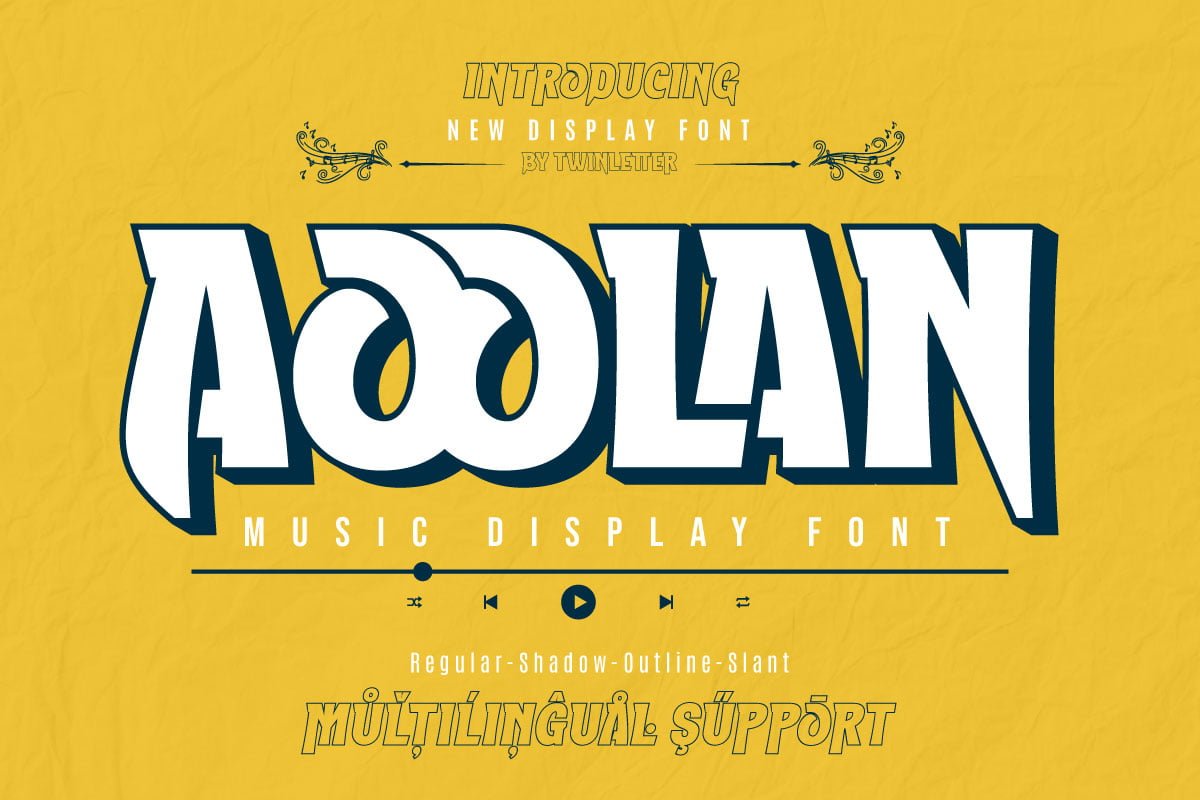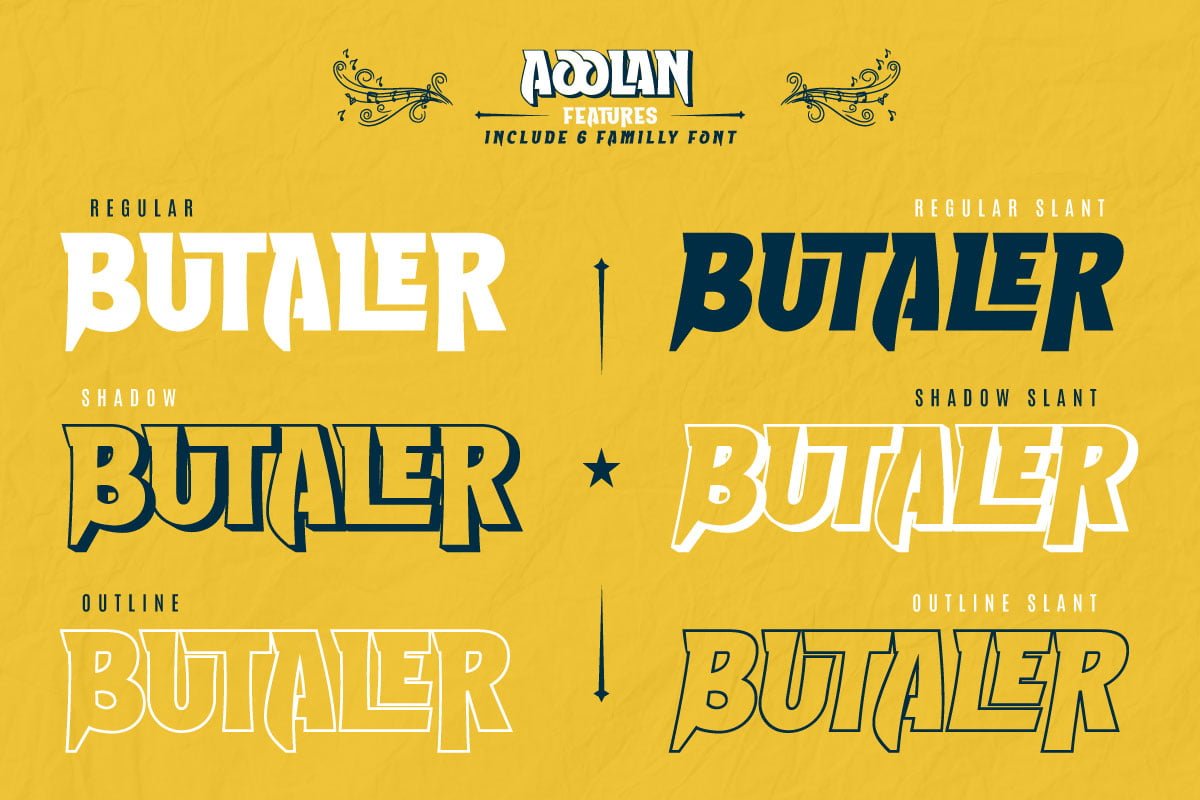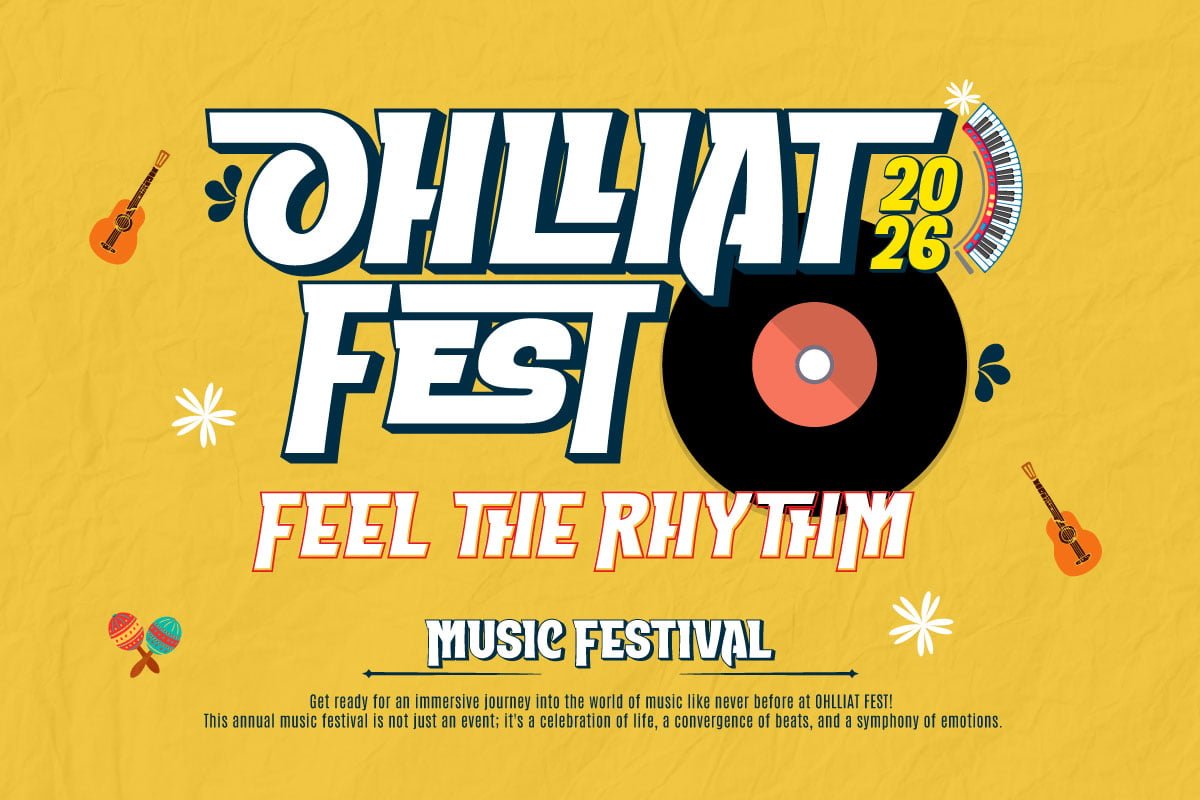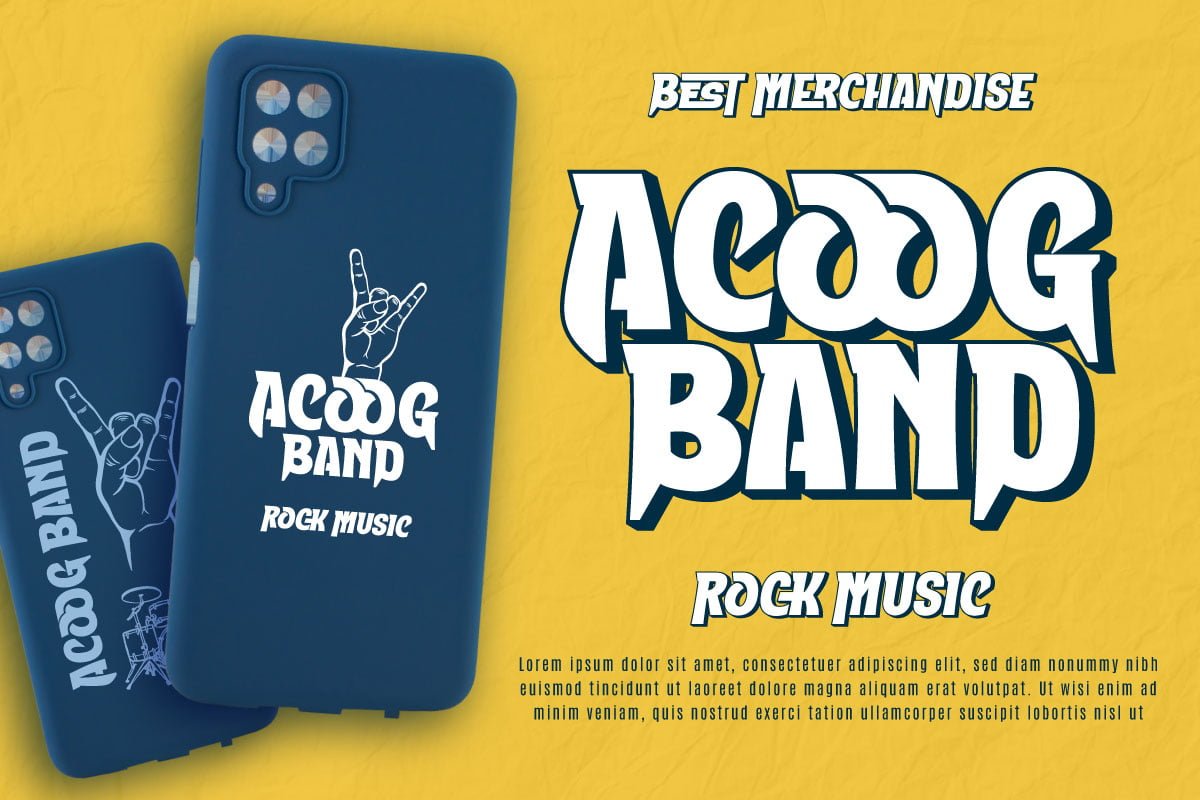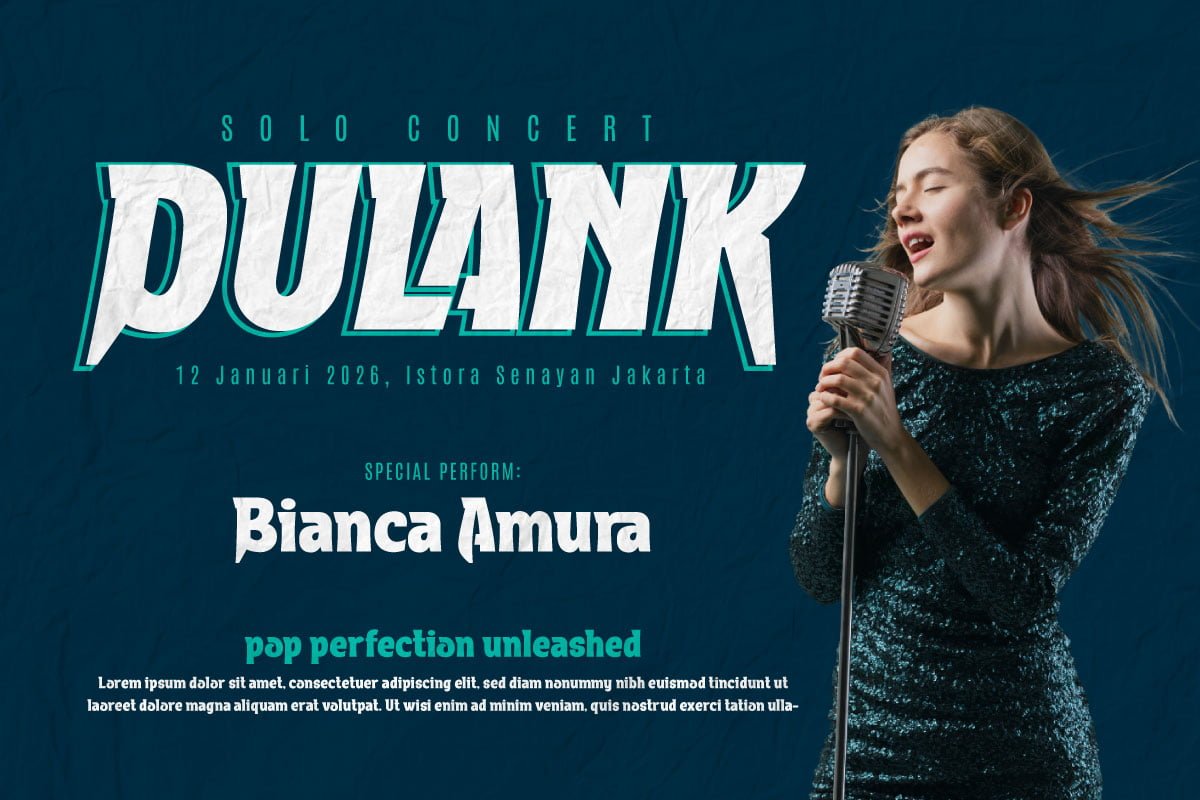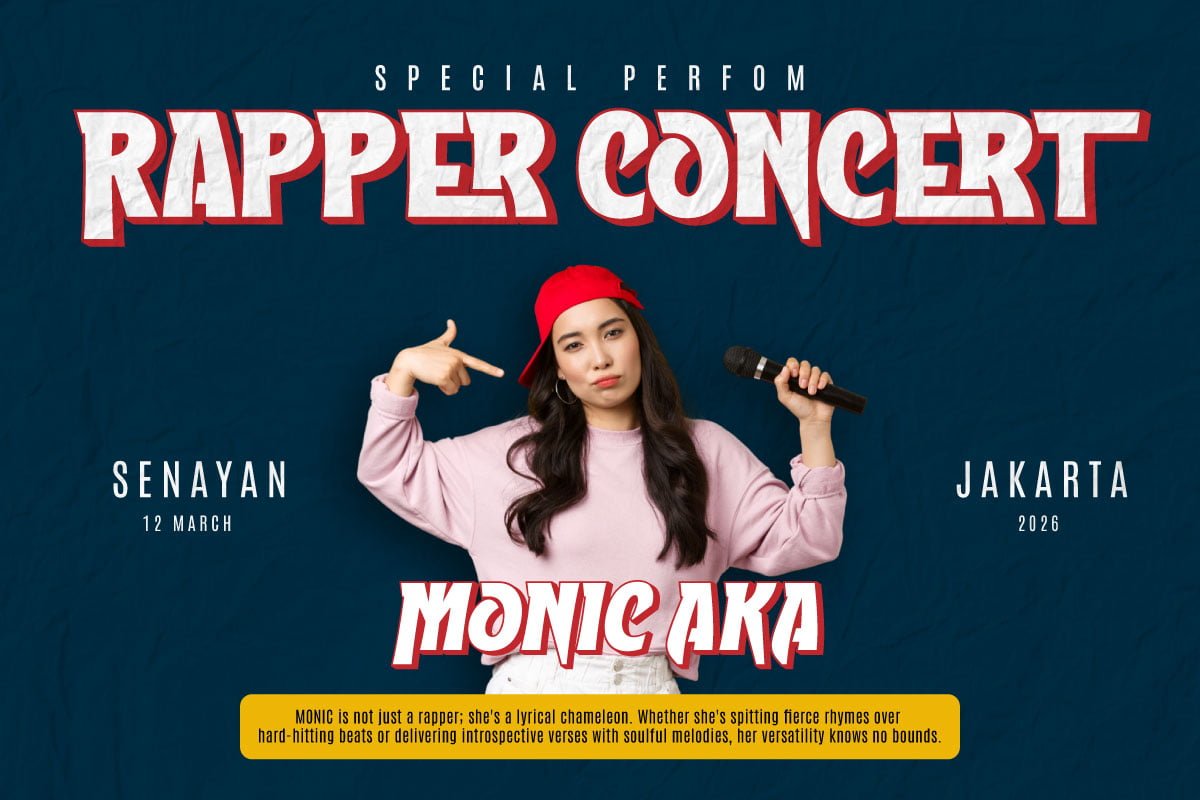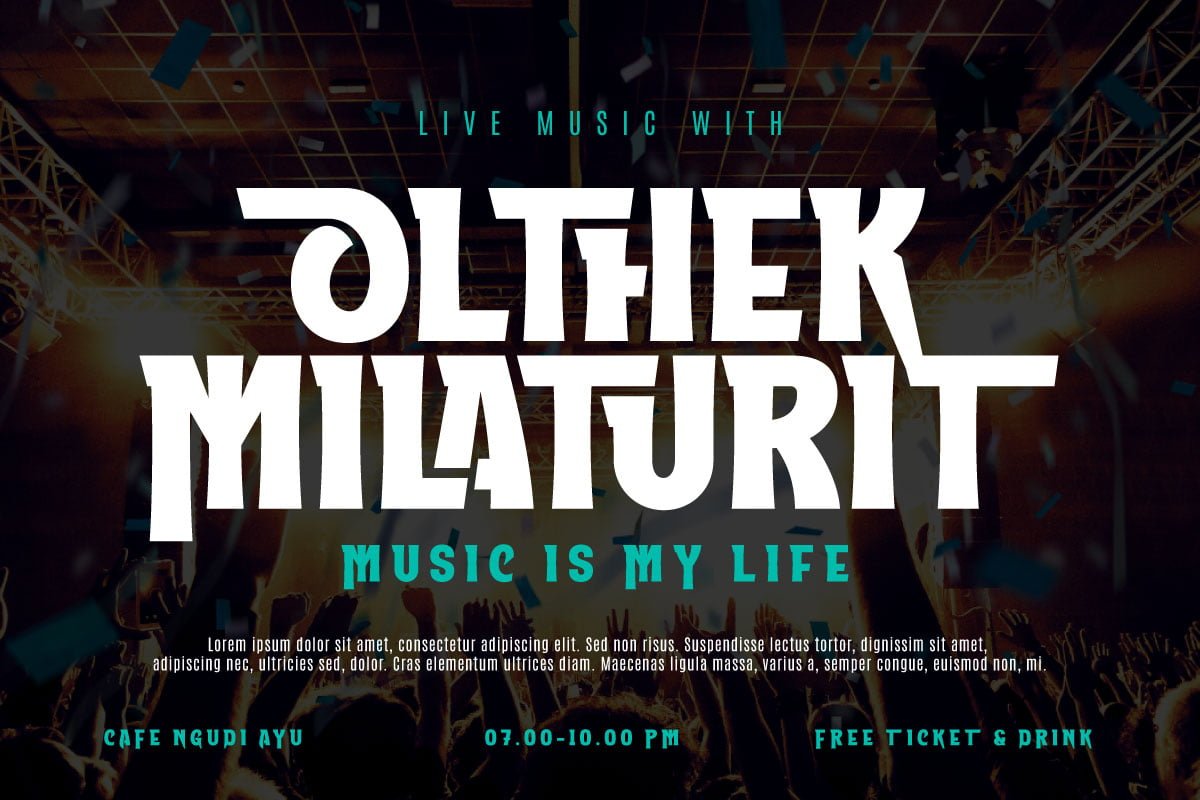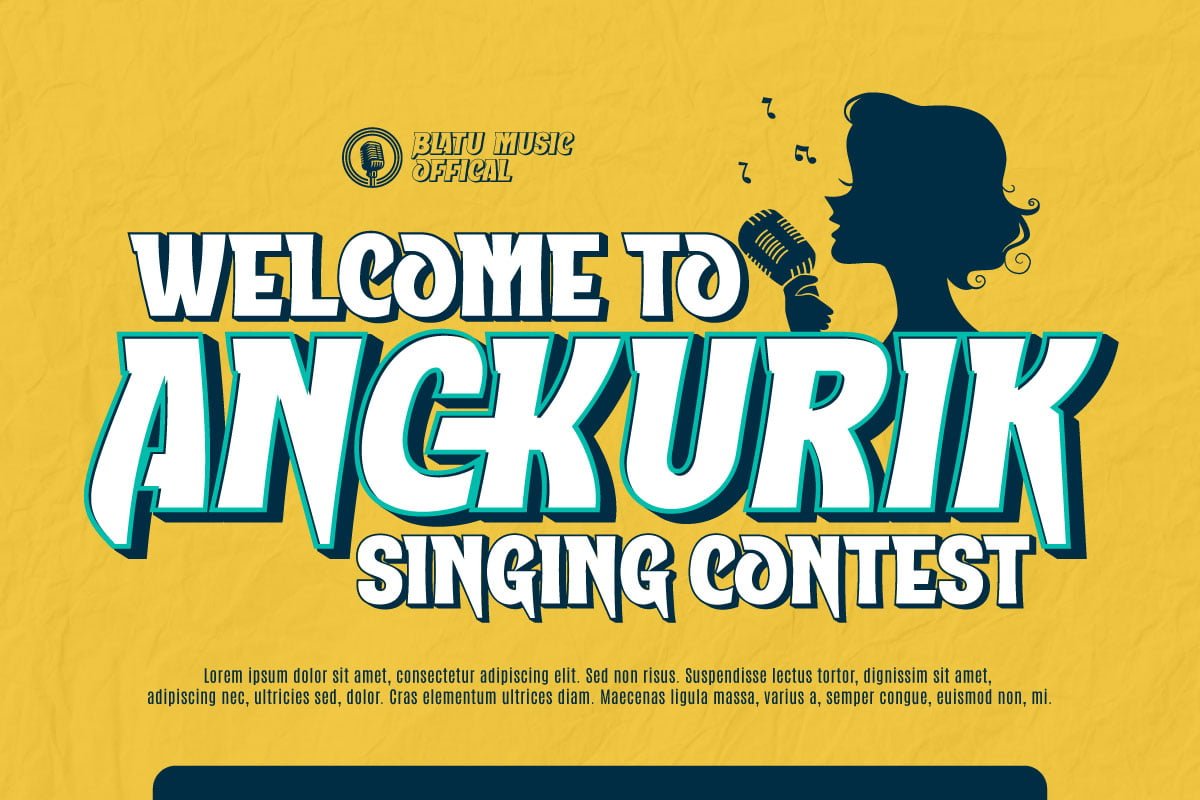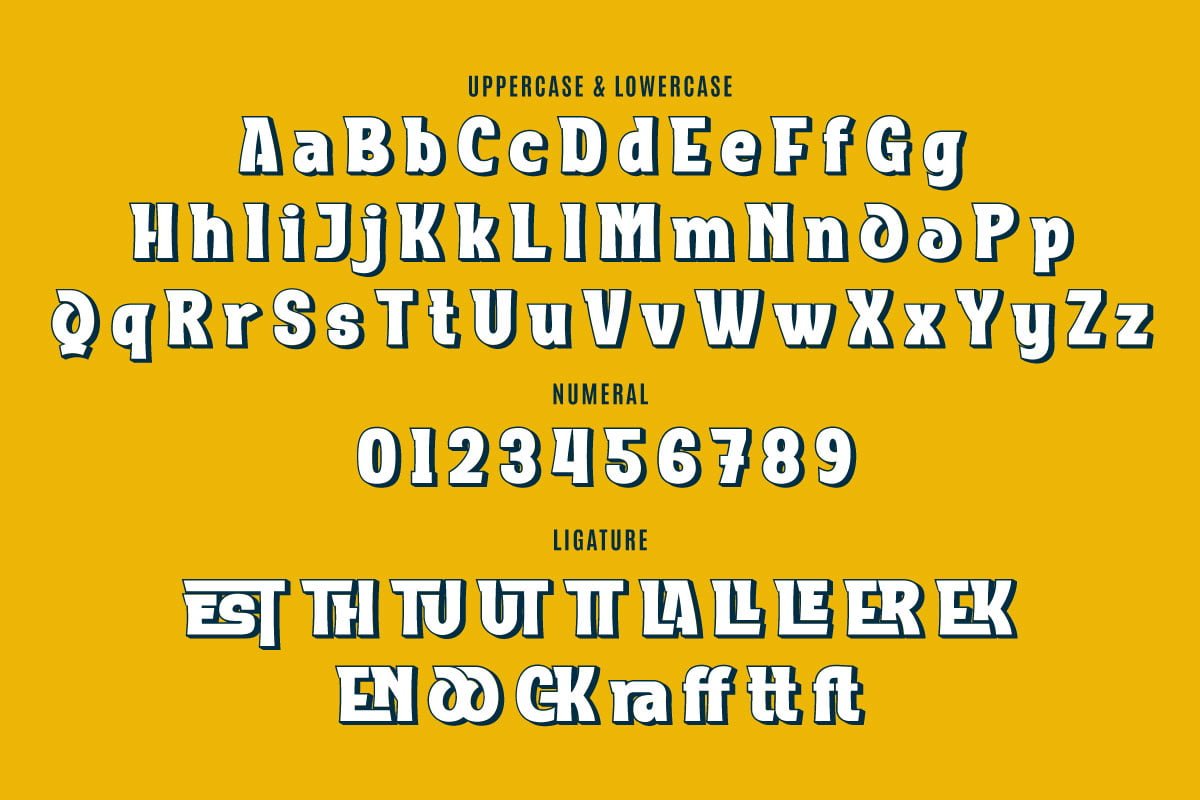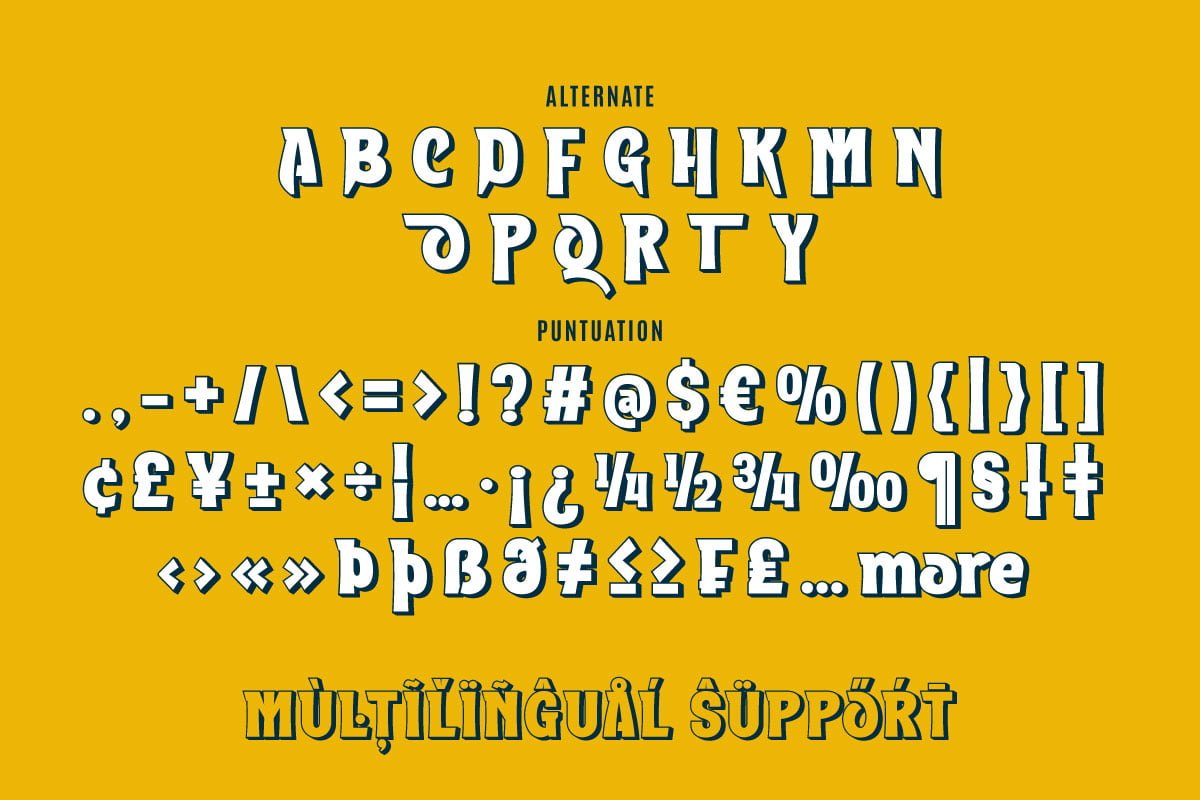
Aoolan – Music Display Font
Shadow
Shadow-Slant
Slant
Outline
Outline-Slant
Aoolan is a loyal friend to music designers and art lovers who need a unique visual touch. As a sophisticated music display font, Aoolan features six stunning styles, including Regular, Outline, Shadow, and Slant.
Each Aoolan character is designed with precision to create a harmonious and artistic appearance. This font combines the clarity of Regular, the artistry of Outline, the tension of Shadow, and the elegance of Slant to provide endless possibilities in your designs.
With support for six different styles, Aoolan allows you to customize the design according to the musical atmosphere you want to depict. Use Outline for an artistic touch or Shadow for a dramatic effect; the choice is at your fingertips.
Aoolan is not just a font, but a tool of creative expression that brings a visual dimension to any of your music projects. Bring the beauty of design to your sound world with Aoolan Music Display Fonts.